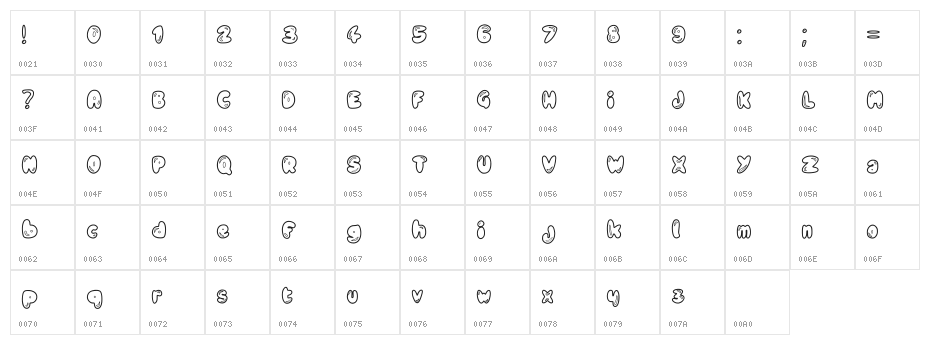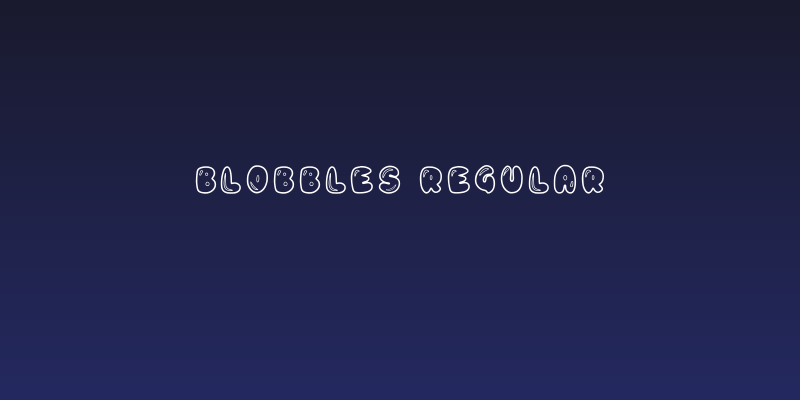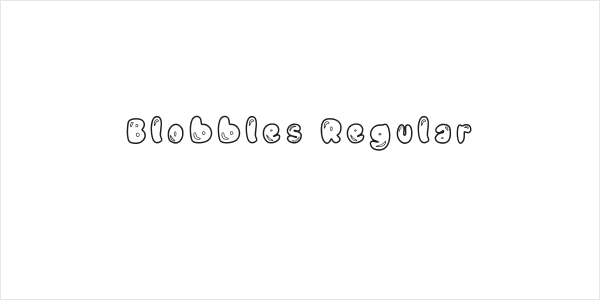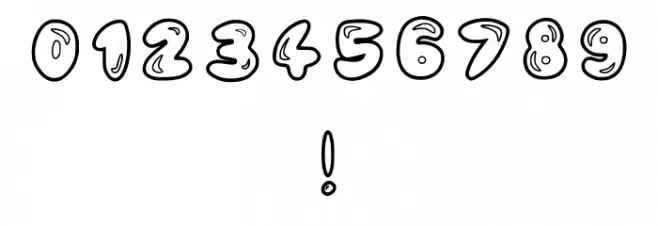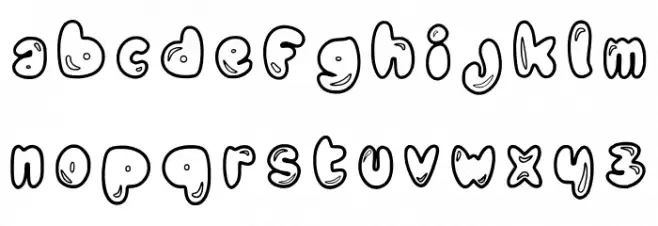
Blobbles Regular Font
Blobbles Regular Description
This playful and quirky font features rounded, blob-like characters that give it a fun and whimsical appearance. Each letter is uniquely shaped with a bold outline, creating a sense of movement and fluidity. The font's design is reminiscent of cartoon or comic styles, making it ideal for projects that require a lighthearted and informal touch. The characters are evenly spaced, ensuring readability while maintaining their distinctive style. This font is perfect for creative projects that aim to capture attention with its unconventional and lively design.
| Overall Style | Whimsical |
| Proposed Projects | Ideal for children's books, comic strips, playful branding, and creative posters. |